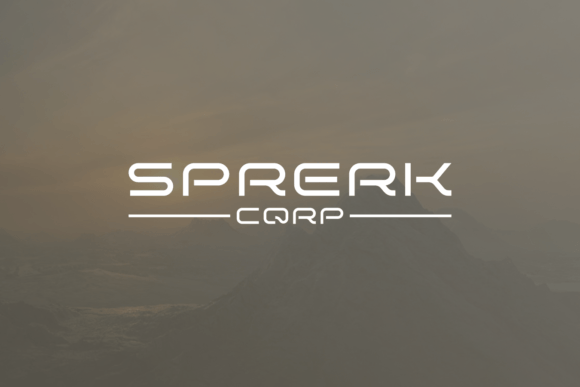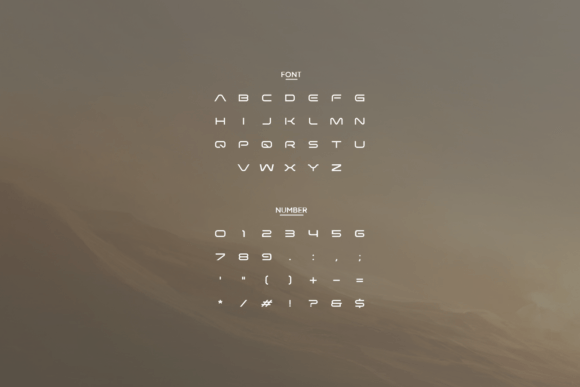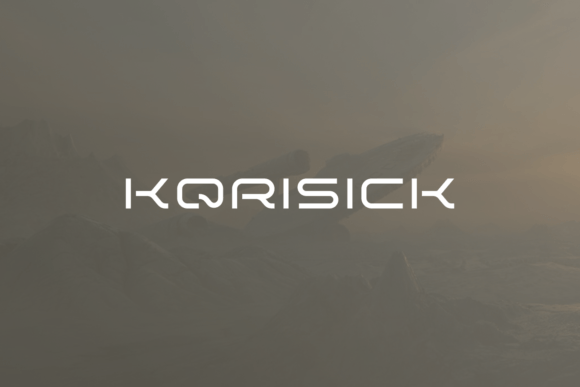
Introduction to Rokiro Font
Remember that moment when a great font choice made all the difference in your creative project? It’s like the missing piece that brings everything together. For designers, the right font can elevate a design from good to great, and that’s exactly what the Rokiro Font does.
As a cool and neat display font, Rokiro Font is perfect for capturing attention in headlines, branding, and logo designs. Its simple yet modern and elegant look exudes a sense of sophistication, making it a valuable resource for designers looking to add a touch of class to their work. With its smooth angular shape, Rokiro Font is a high-quality design resource that can be downloaded for free, allowing designers to focus on what matters most – bringing their creative vision to life.
Key Features of Rokiro Font
- High-quality design resource suitable for creative projects, including graphics, logos, and branding materials.
- Unique, hand-crafted design that sets it apart from other fonts, adding a touch of personality to creative projects.
Honest Review: Rokiro Font
I recently stumbled upon the Rokiro Font, and I must say it’s an interesting addition to any design resource library. With a free download available, I was excited to test it out for my next creative project.
One thing that works well for the Rokiro Font is its high quality design. The font’s sleek and modern aesthetic makes it perfect for any contemporary design project. The font’s clean lines and minimalistic approach also make it a great choice for designs that require a lot of text. Additionally, the transparent background option allows for seamless integration with any design element.
Here are some features that make the Rokiro Font stand out:
- High quality design
- Modern and sleek aesthetic
However, I did encounter some limitations with the Rokiro Font. ⚠️ The font’s versatility is somewhat limited, and it may not be suitable for all design projects. Additionally, the font’s style may become repetitive if used extensively. ✨ On the other hand, the font’s modern aesthetic makes it perfect for projects that require a touch of contemporary flair.
Overall, the Rokiro Font is a great addition to any design library, but it may not be suitable for all projects. I would recommend it for creative projects that require a modern and sleek aesthetic.
Tips for Getting the Most Out of Rokiro Font
For a high-quality design, use the Rokiro Font with a transparent background to create a unique and creative project. Experiment with different font sizes and styles to add visual interest. This versatile font is perfect for a variety of design projects, from logos to brochures.